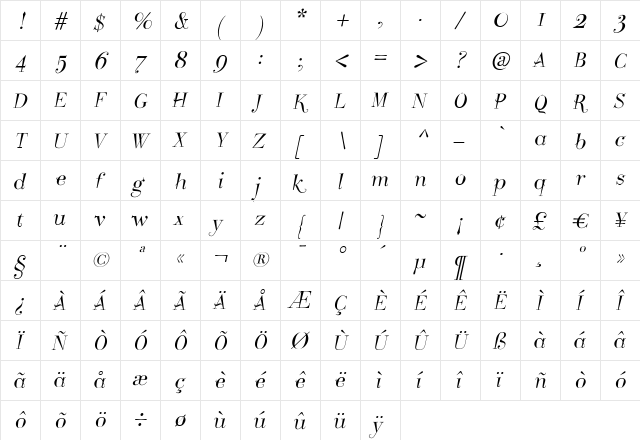
Take Five Italic Regular Font Preview
Take Five Italic Regular
Take Five Italic Regular Font Details
Design Context for Take Five Italic Typeface
Take Five Italic is a composed and adaptable typeface that performs quietly and consistently across a wide range of design contexts. Its italic angle brings a sense of urgency and motion to the letterforms.
Pro Tip: Use Take Five Italic for emphasis, pull quotes, and subheadings where its slanted energy can add rhythm to the layout.